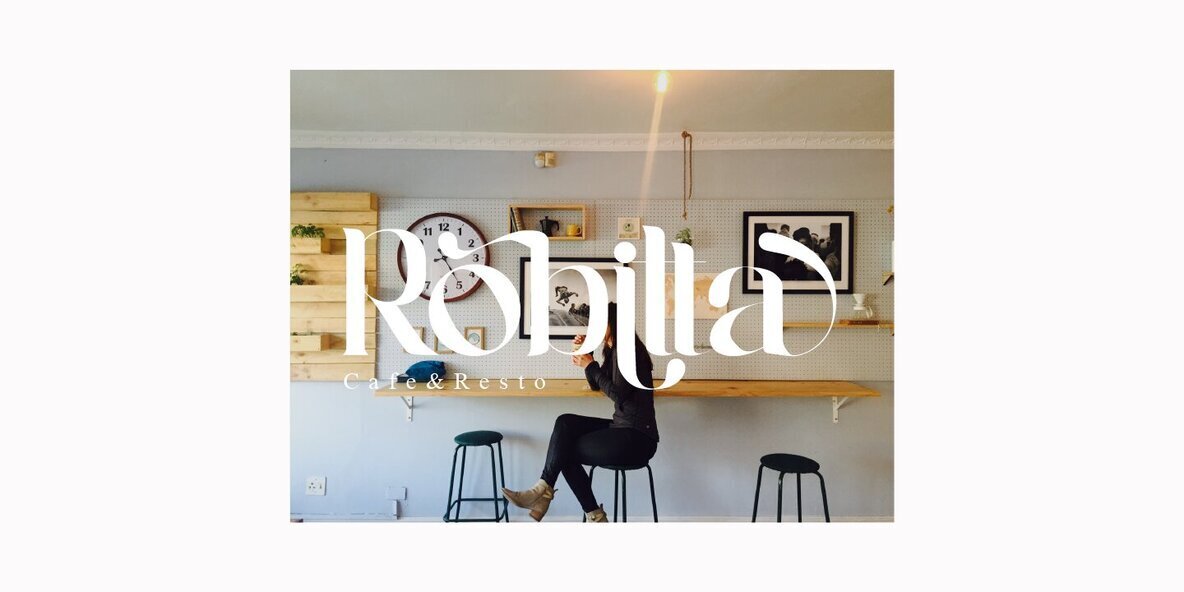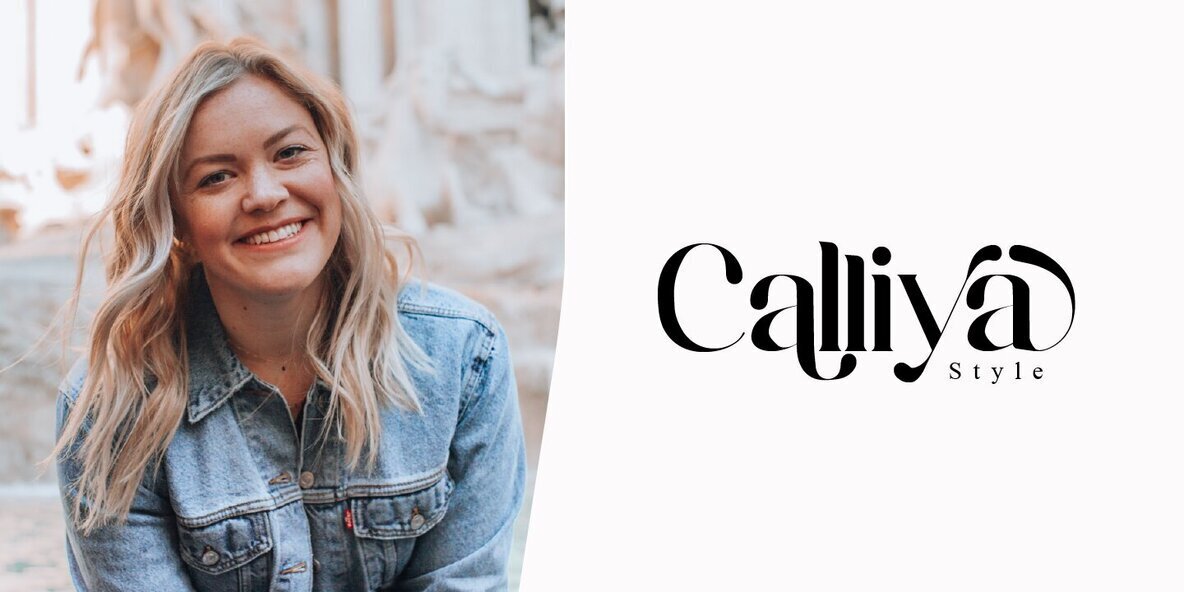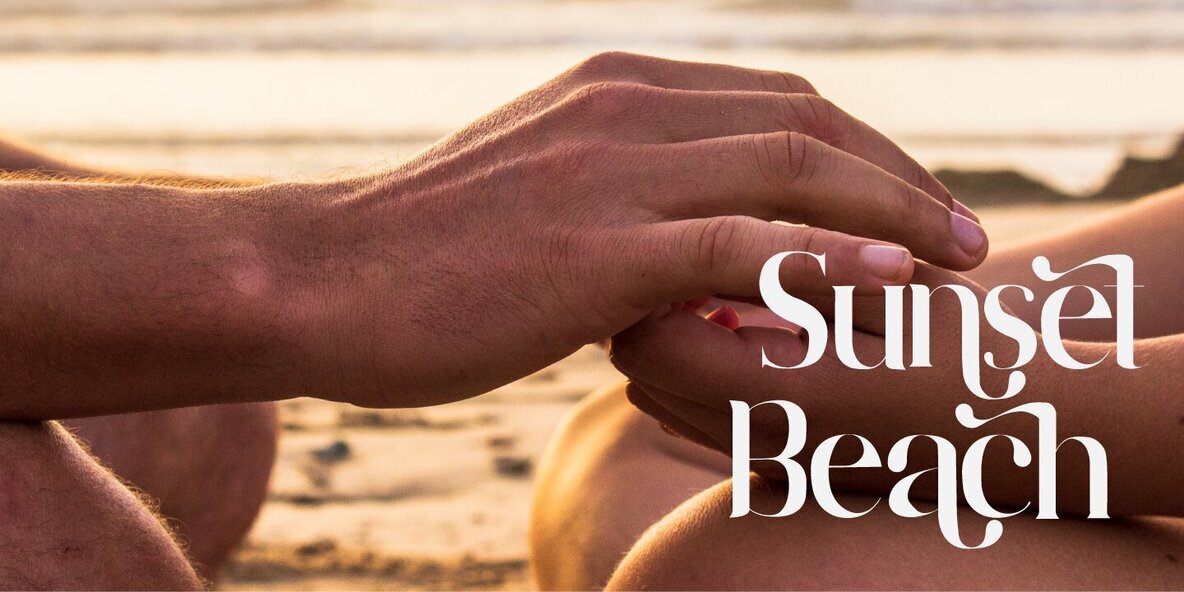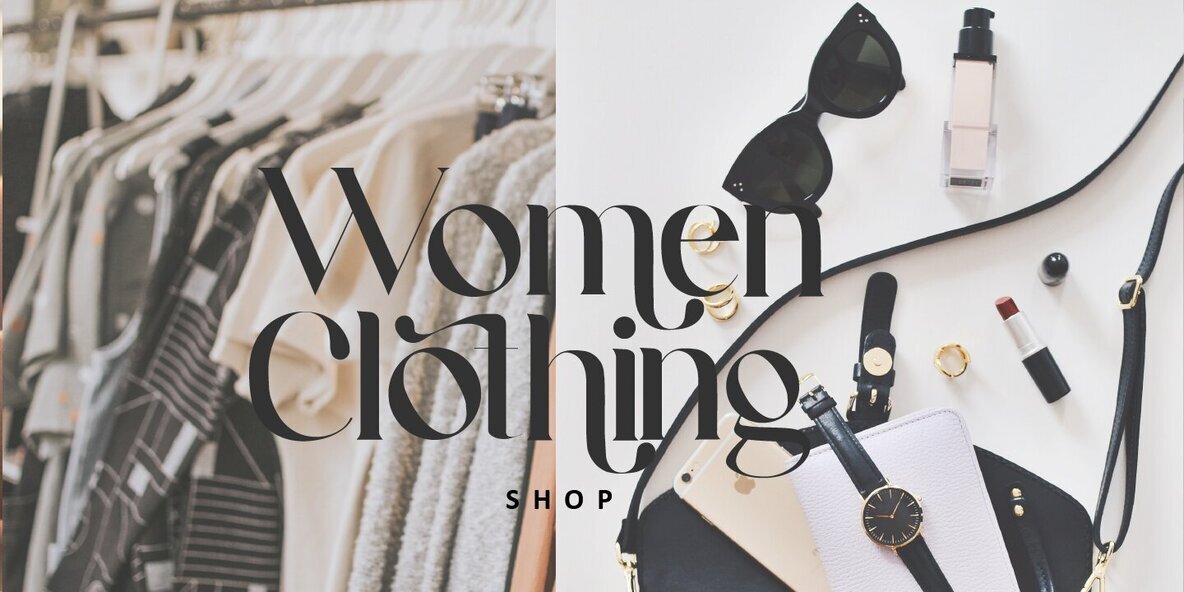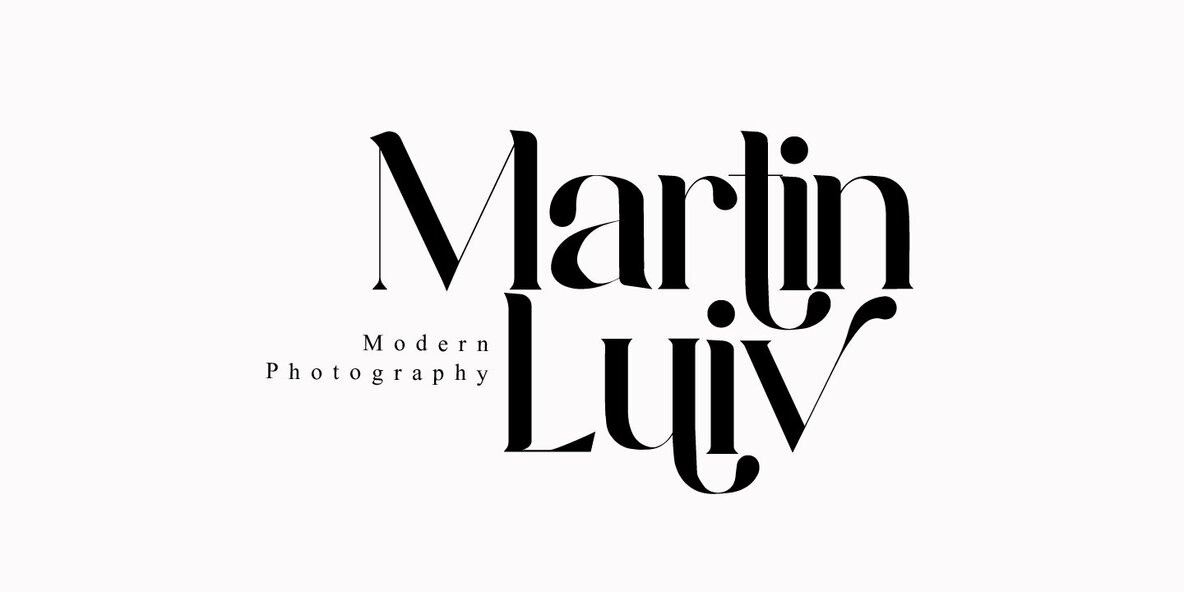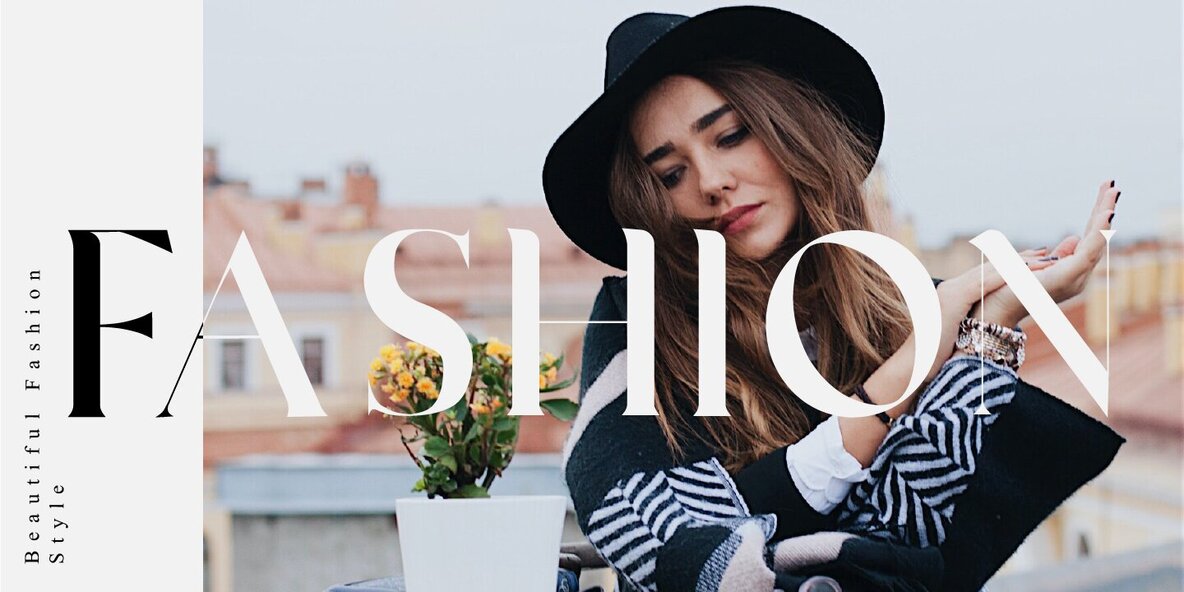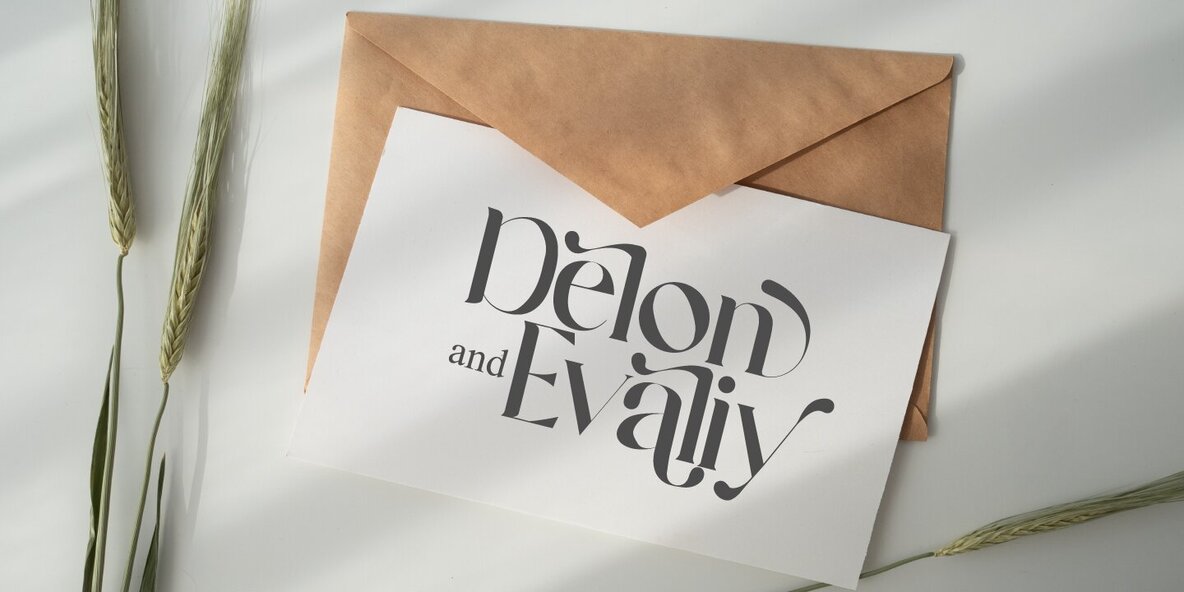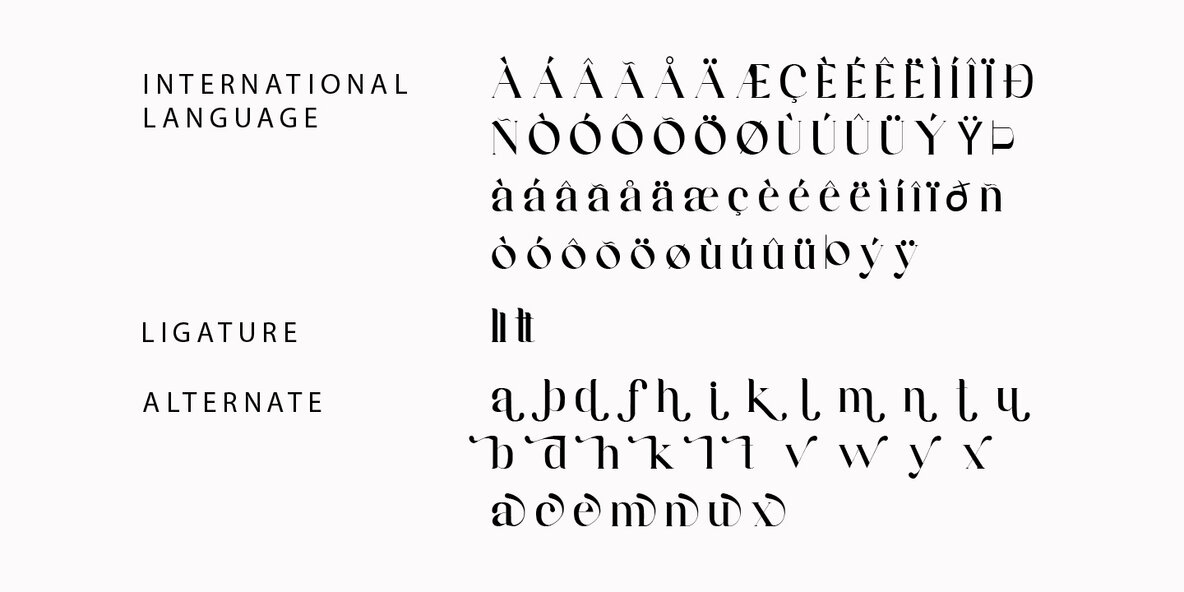
Maldive Font
Maldive
The Maldive font, crafted as a sophisticated serif typeface, is ideal for applications where style and elegance are paramount. This versatile font enhances the visual appeal of logos, book covers, and brand materials. It also lends an air of refinement to photography projects and wedding stationery, making it a valuable asset for any creative endeavor.Maldive: A Serif Typeface for Distinctive Branding